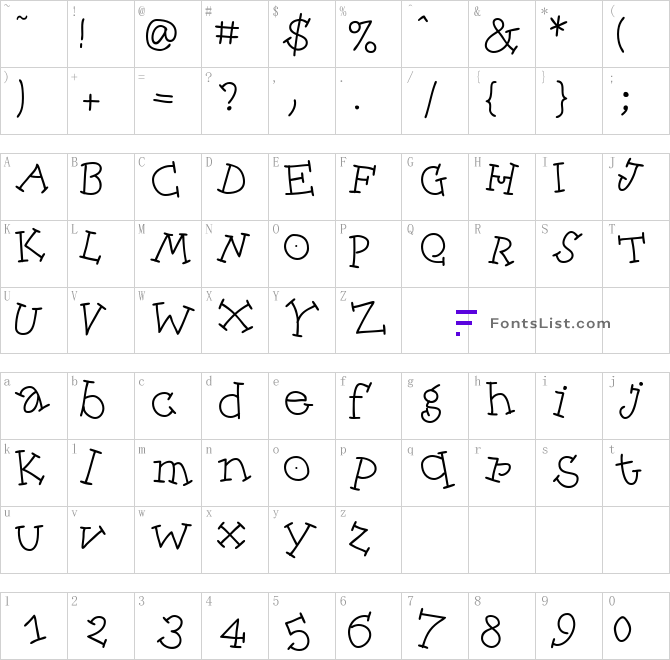
- Font Name:AIDancingEgypt
AIDancingEgypt.ttf is a very beautiful artistic font, AIDancingEgypt.ttf is widely used in the design and printing of various books and pictures,AIDancingEgypt.ttf has a strong visual impact,AIDancingEgypt.ttf is a commonly used font in newspapers, magazines and books, and is used in posters, e-commerce Poster design, store design, logo design, font design and other fields.AIDancingEgypt.